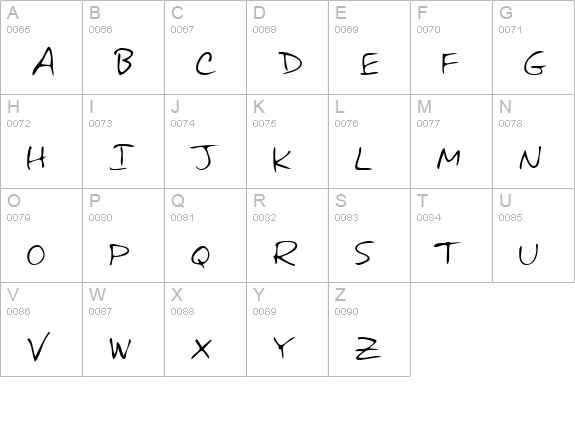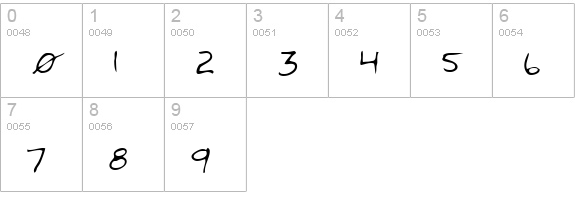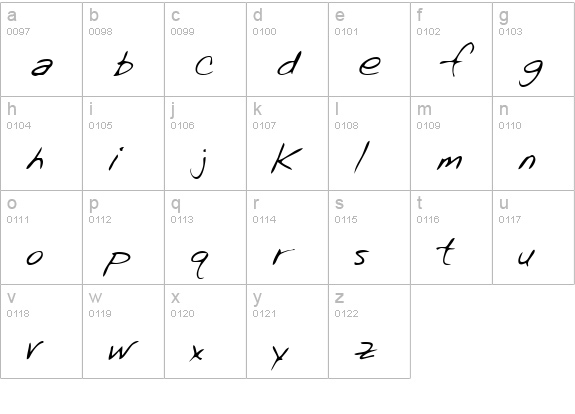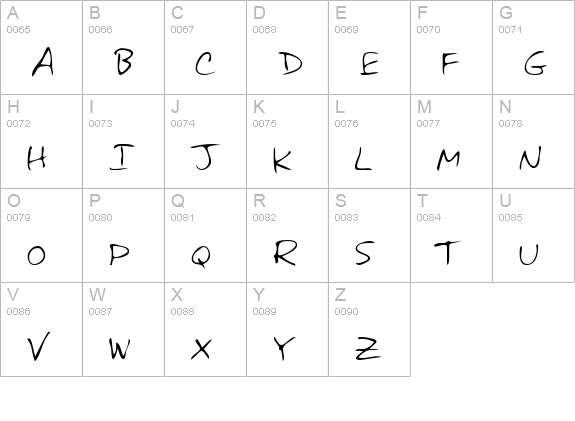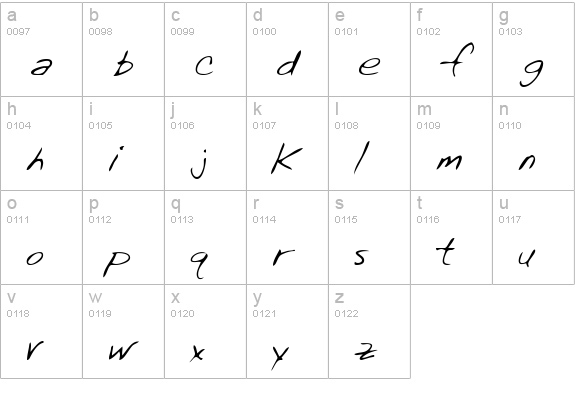
AbigailsHand Regular Font Details
AbigailsHand Regular is the standard, neutral variant in the AbigailsHand typeface family \xE2\x80\x94 well suited to general body text, paragraphs, and standard typographic work.
AbigailsHand Regular is a charming and whimsical font that adds a touch of elegance to any project. With its handwritten style and graceful curves, this font is perfect for invitations, greeting cards, and other creative designs. The smooth and flowing strokes of AbigailsHand Regular give it a delicate and feminine look, making it ideal for projects that require a soft and romantic touch. Best of all, AbigailsHand Regular is available for free download at FontsMarket.com. This means you can add this beautiful font to your collection without any cost. Whether you're a designer looking for a new addition to your font library or someone who simply appreciates quality typography, AbigailsHand Regular is sure to impress with its versatility and charm. Download it today and elevate your designs with this lovely handwritten font.